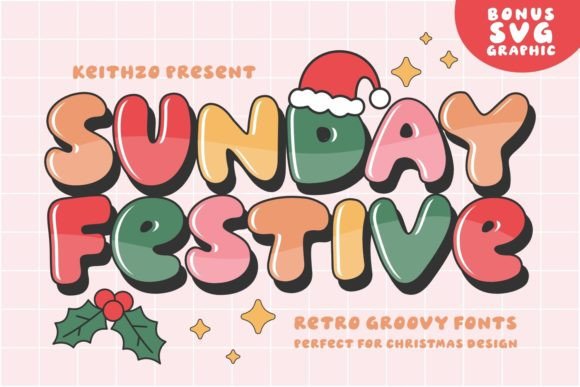
Introducing Sunday Festive Font, the ultimate font choice for anyone in search of the Best Font For Academic Poster. Created by the talented Keithzo from 7NTypes, this display font is a true masterpiece that will elevate your designs to a whole new level!
Get ready to infuse your Christmas designs or any other project with a special retro touch. Sunday Festive Font is bold, fun, and exudes a sense of nostalgia that will captivate your audience. Its cool appearance alone is enough to make it a must-have, but there's more to this font than meets the eye.
Unlock a world of creativity with the many bonuses that accompany this font. Explore the realm of Christmas typography quotes and embellish your designs with stunning Christmas illustrations. Each element is meticulously designed to enhance your creations and bring them to life.
When it comes to retro designs, Sunday Festive Font reigns supreme. Its groovy look is perfect for any project that requires a touch of vintage charm. Whether you're designing posters, banners, or even social media graphics, this font is guaranteed to leave a lasting impact on your audience.
But it doesn't stop there. Sunday Festive Font has the power to transform your creative ideas into works of art. With its masterful design, this font has become a favorite among designers worldwide. Let your imagination run wild and watch as this font takes your projects to unimaginable heights.